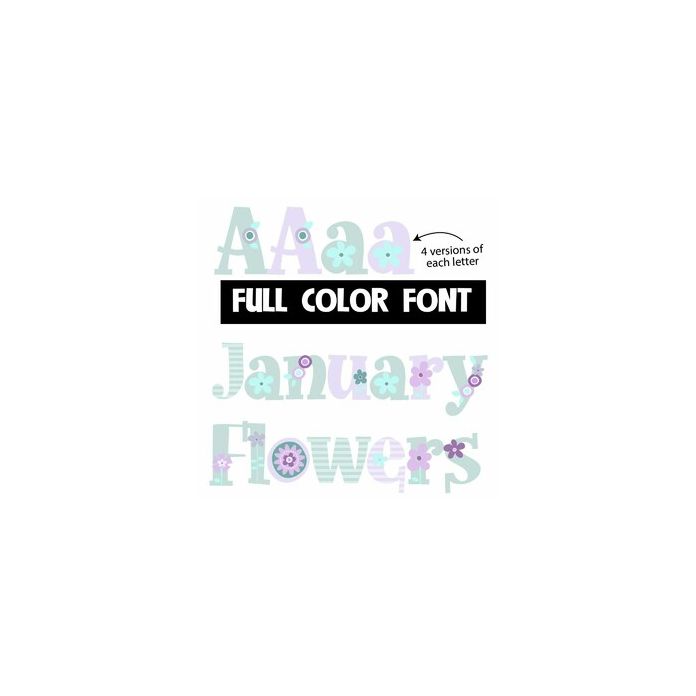
This full-color font features a winter-color palette of flowers and prints. You can access another version of the letters by using the alt characters in Silhouette's glyph map.